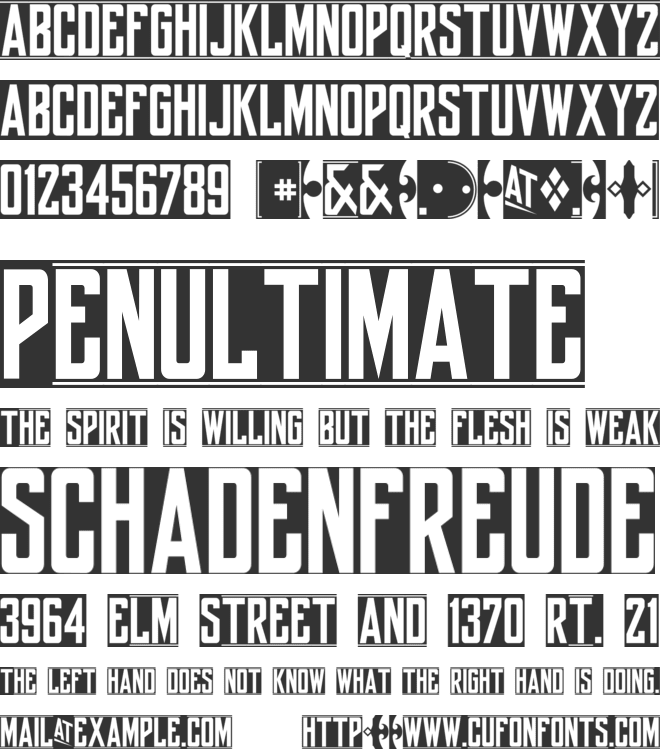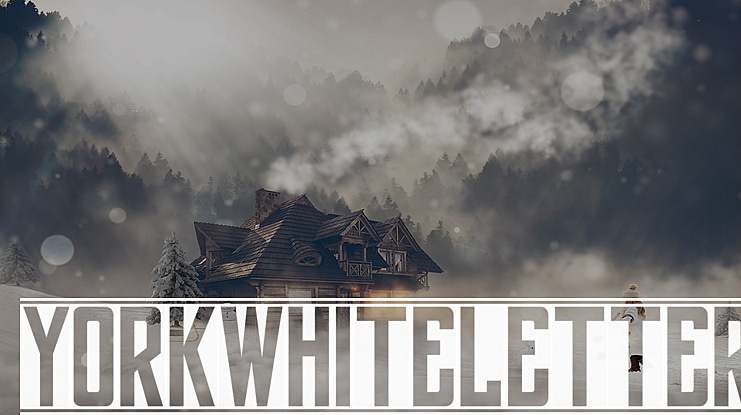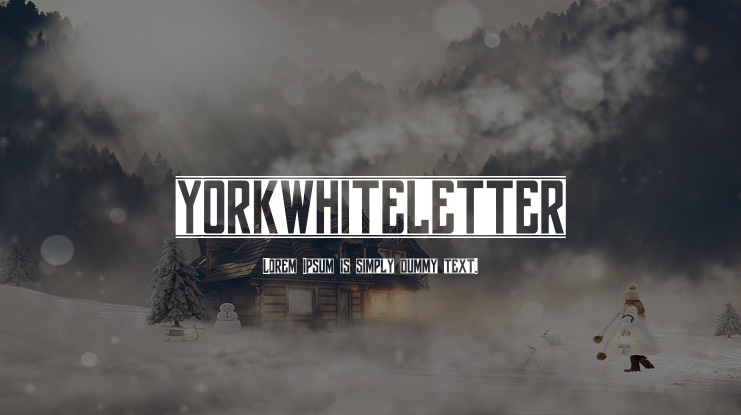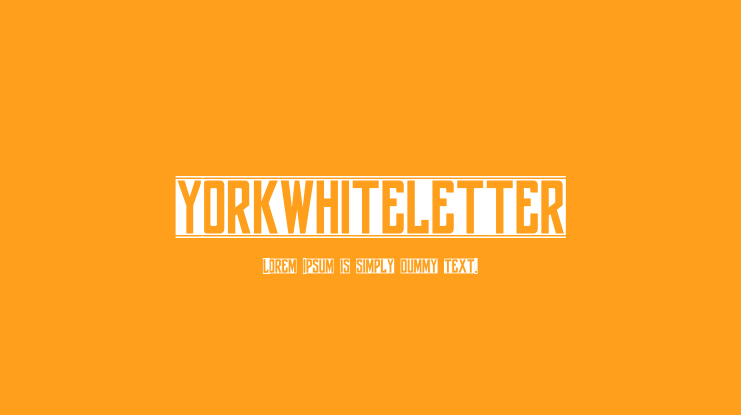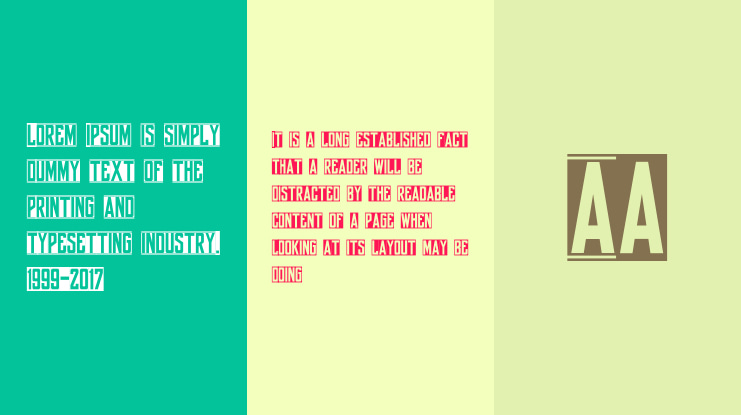
yorkwhiteletter Font
York Whiteletter is designed for making quick and easy banners and logos. Inspired by a Delittle design called Eboracum №3 Improved White Letter Type and late 18th century woodtype. York Whiteletter can be used monospaced, but I decided to include ligatures to improve the fit of common kern pairs. Numerous ends and ornaments are included. Enable Ligatures and use the Glyphs Palette or Character Map to add end pieces and ornaments (see your apps/OS documentation on how to insert special characters and enable ligatures in a font). Glyph maps included in the zip file showing both glyph image and Unicode.